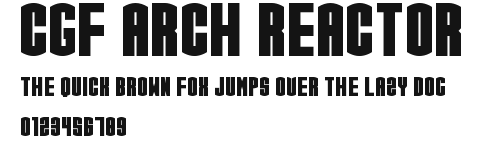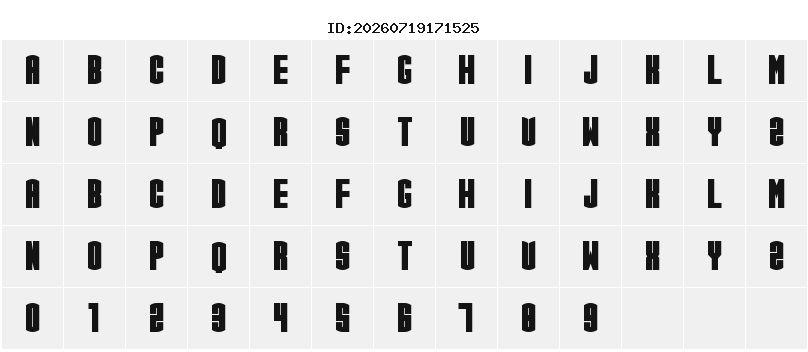
• Font Name: CGF Arch Reactor
CGF Arch Reactor.ttf is a modern, elegant sans-serif font designed for ultimate readability and visual harmony. Perfect for branding, headlines, web design, and print materials.